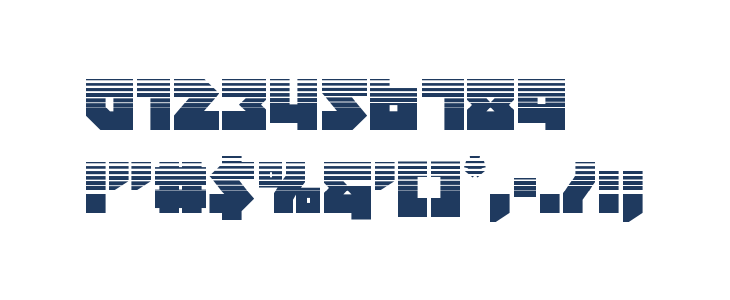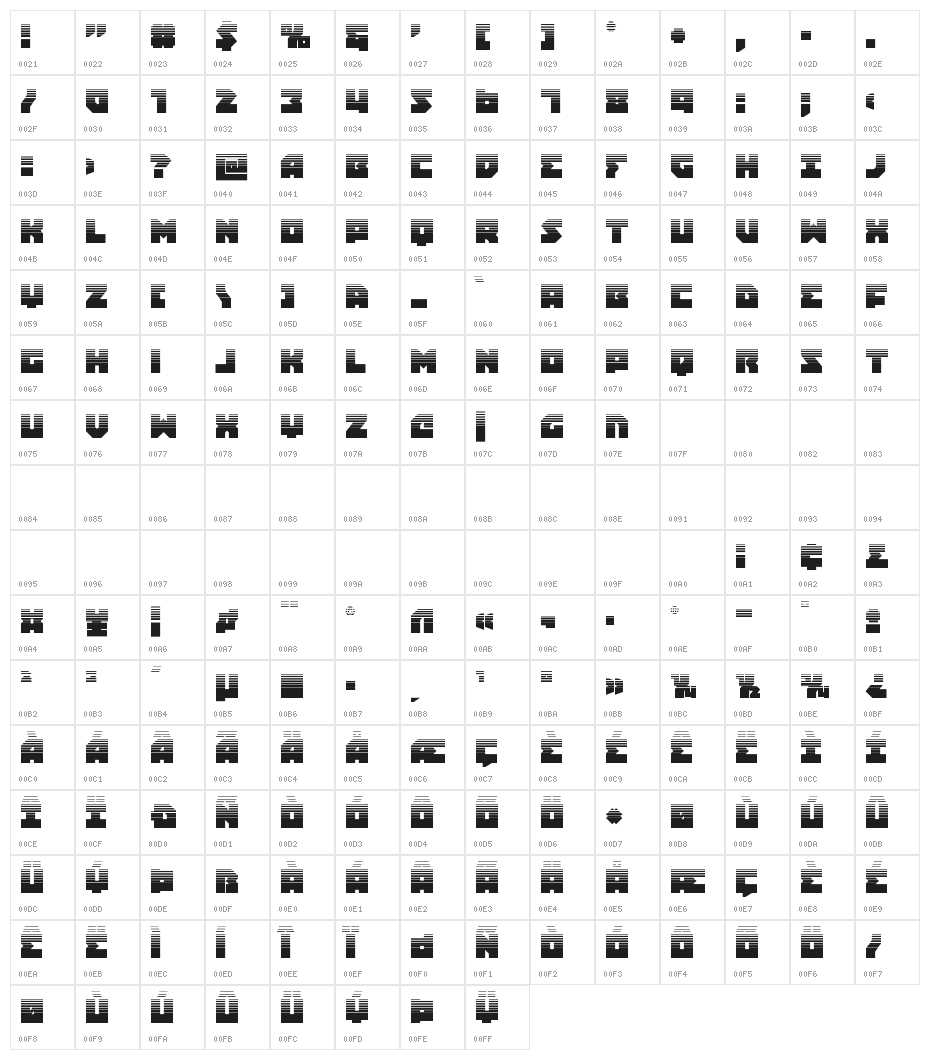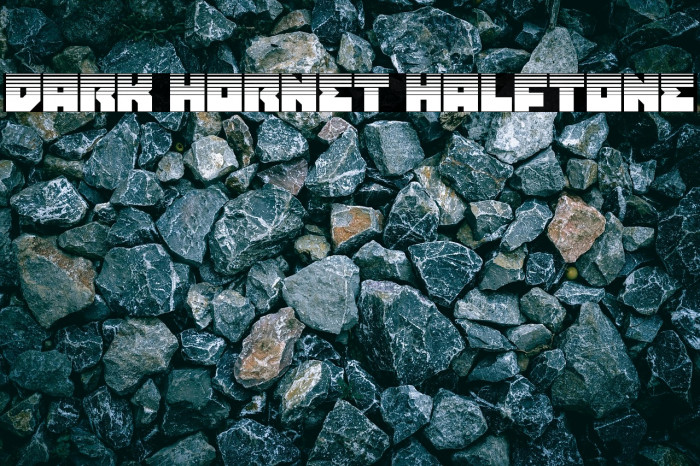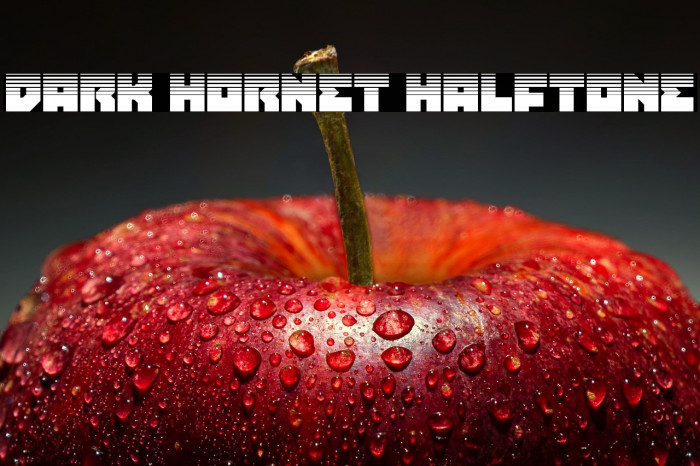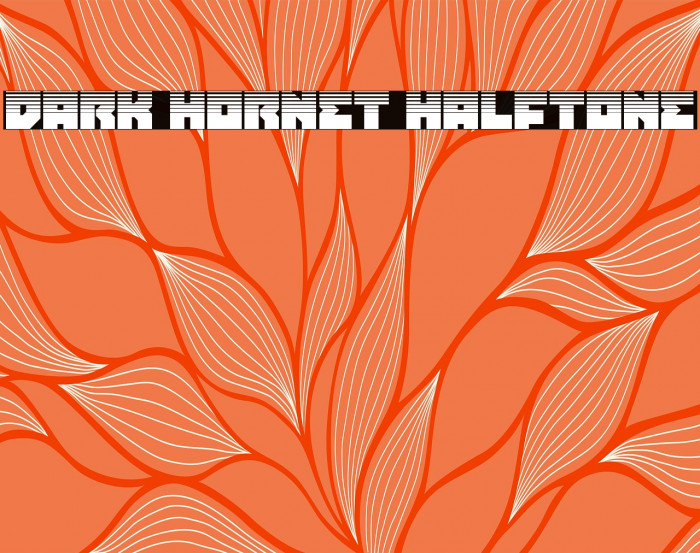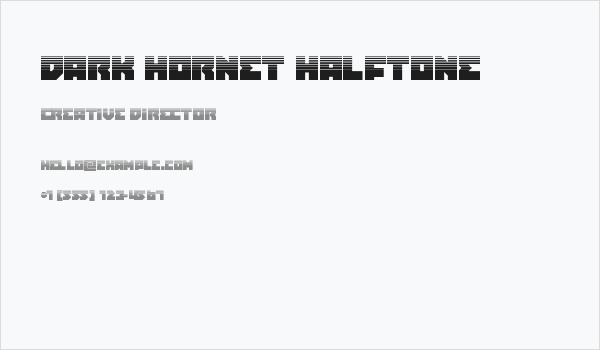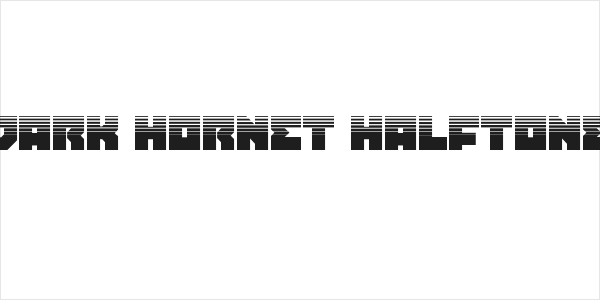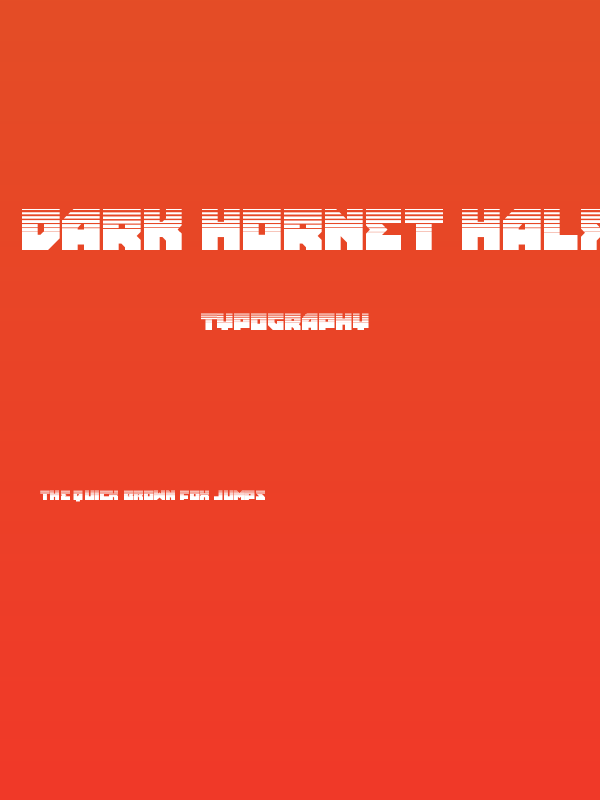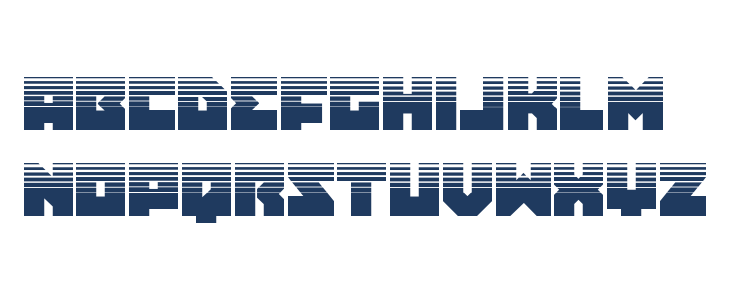
Dark Hornet Halftone Font
Dark Hornet Halftone Description
This font features a bold, futuristic design with a distinct halftone effect. The characters are constructed with solid black bases and horizontal white stripes across the top, creating a dynamic, layered appearance. The geometric shapes and sharp angles give it a modern, tech-inspired look. The uppercase and lowercase letters maintain a consistent style, while numbers and special characters are designed to match the overall aesthetic. The font's unique style makes it stand out, suitable for projects that require a strong visual impact.
Proposed ProjectsIdeal for sci-fi themed designs, tech branding, video game titles, and posters.